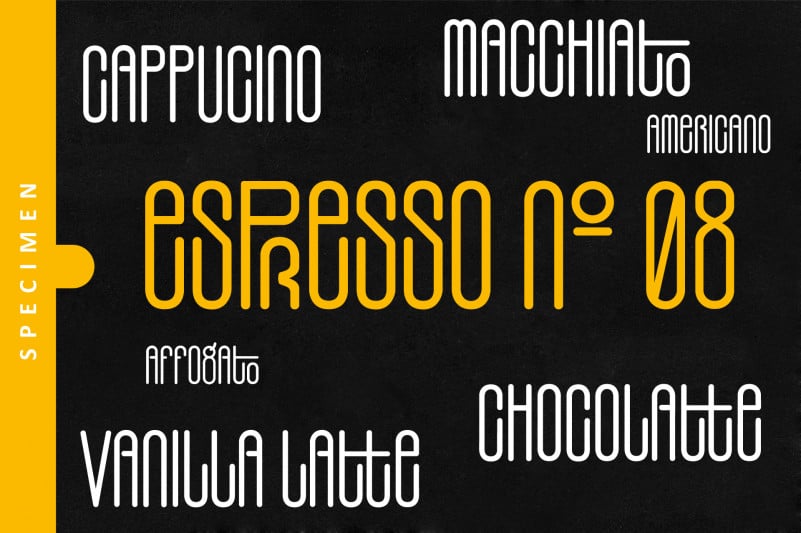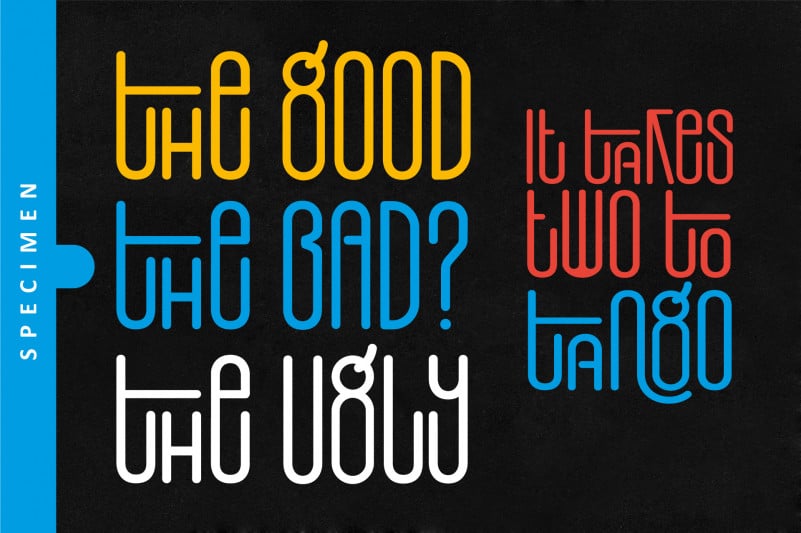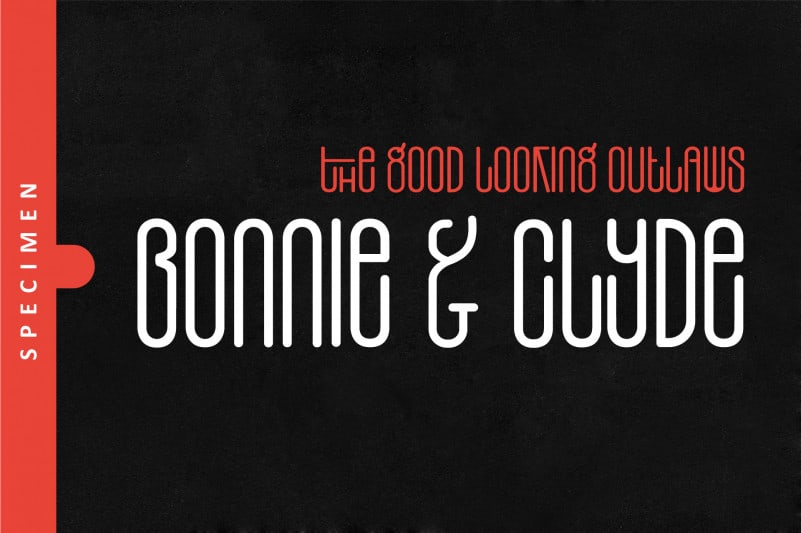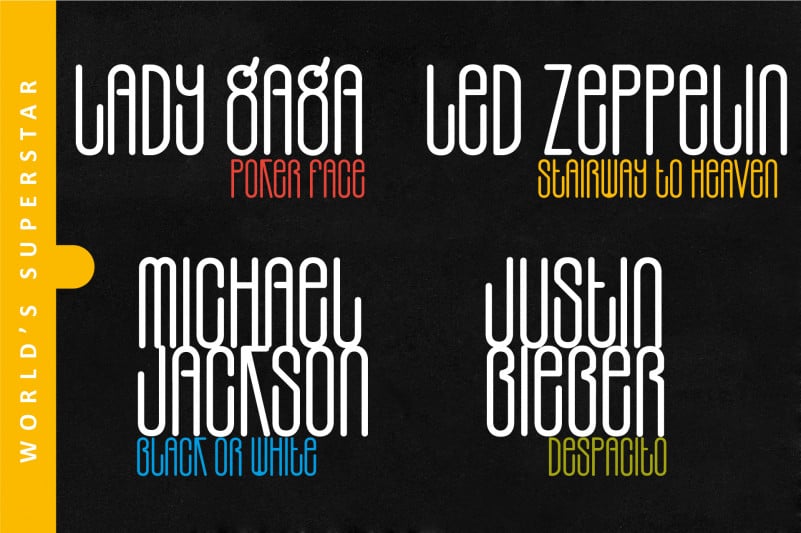
Rotterdam Display Font
Rotterdam Display Font is made to standout with its Capital Letters. Nevertheless, it is also equipped with lowercase and various alternate of ligatures to make various alternatives. Bring your creativity to the next level with Rotterdam.